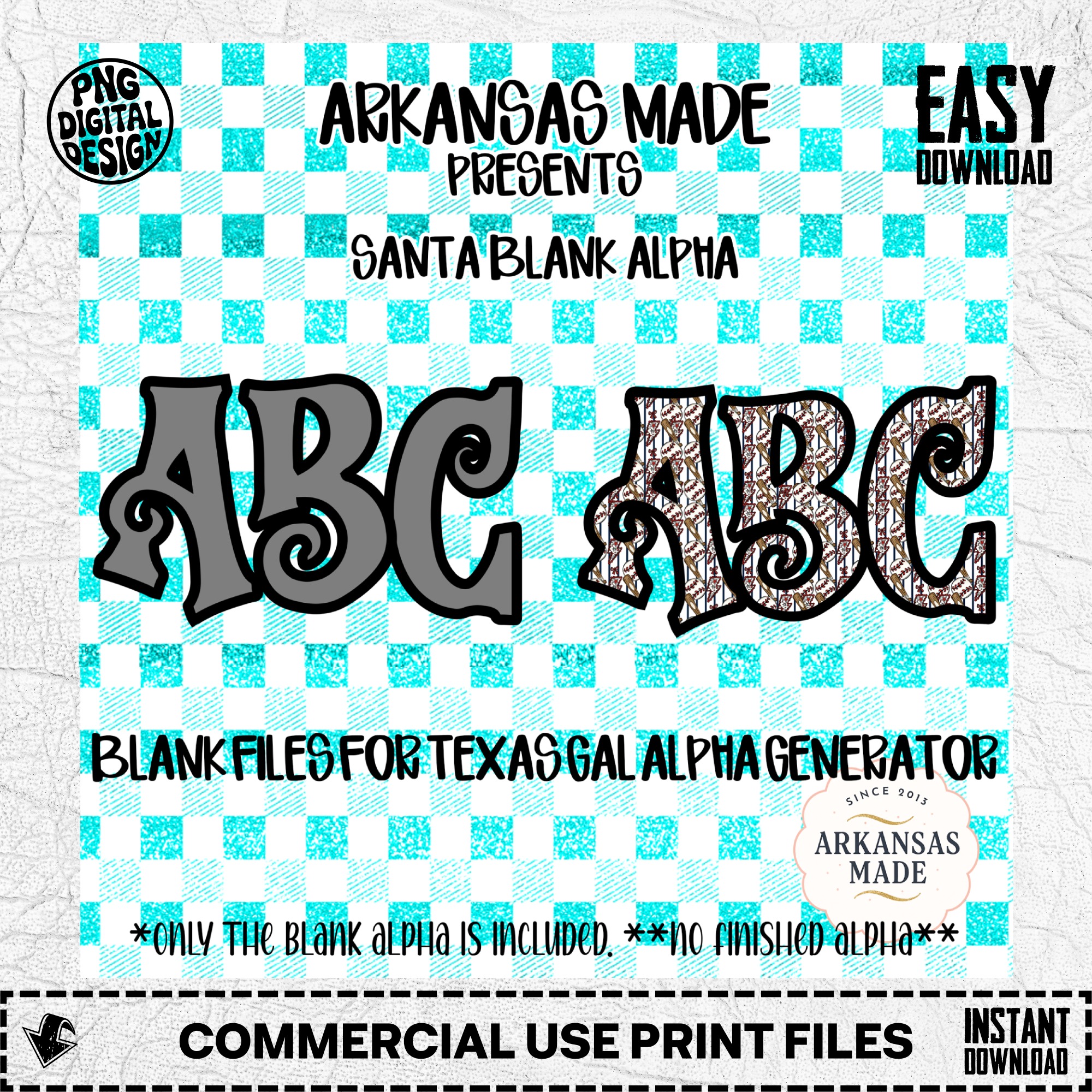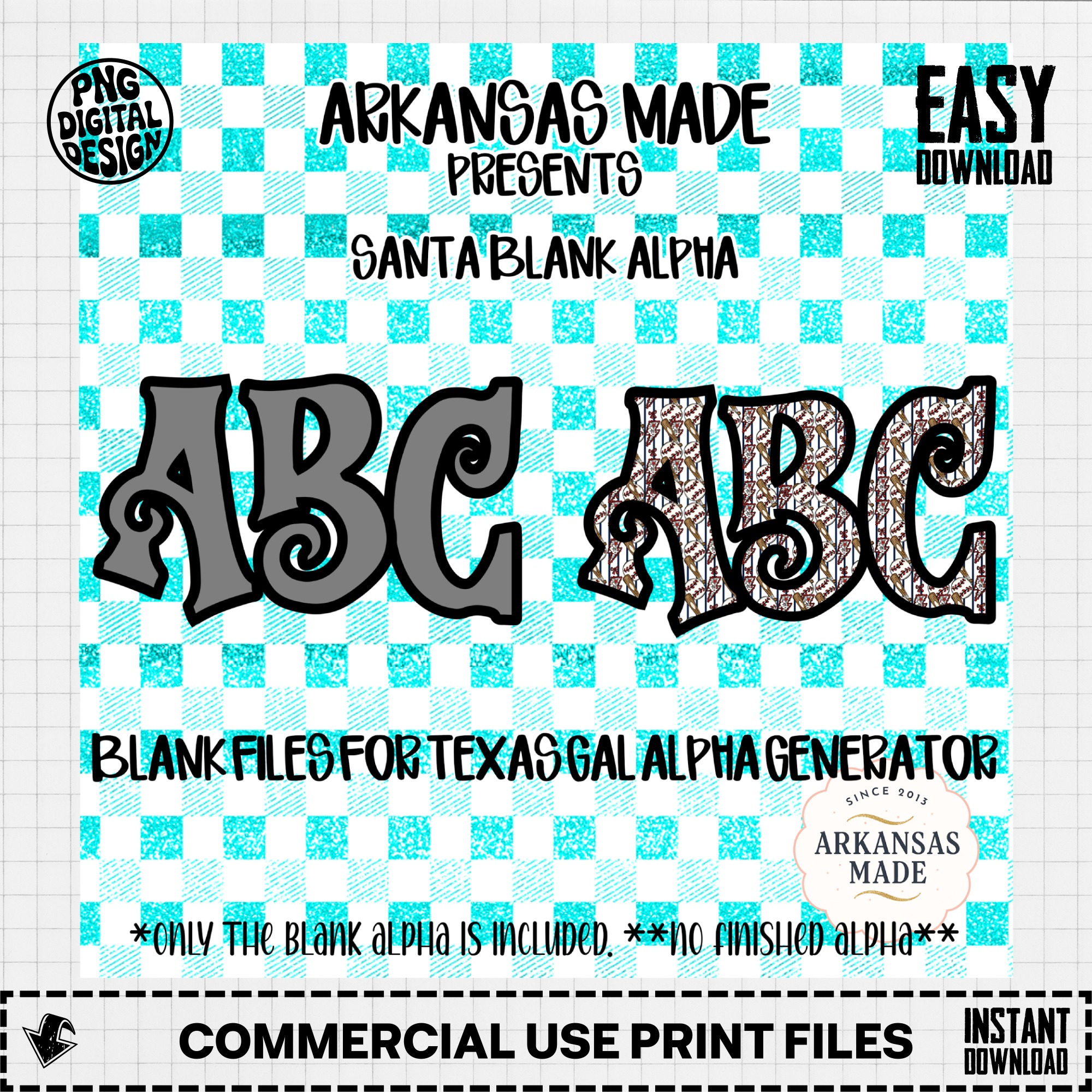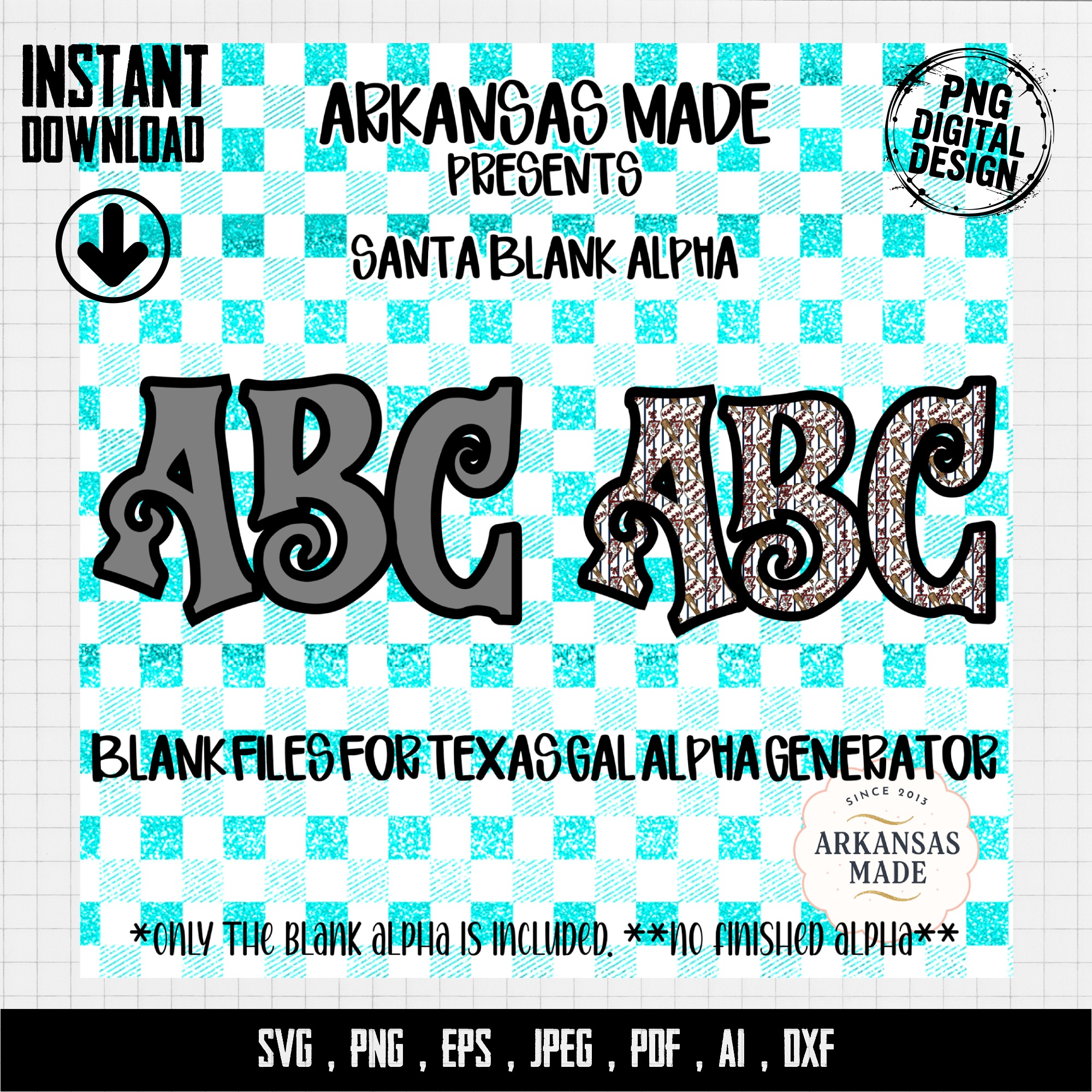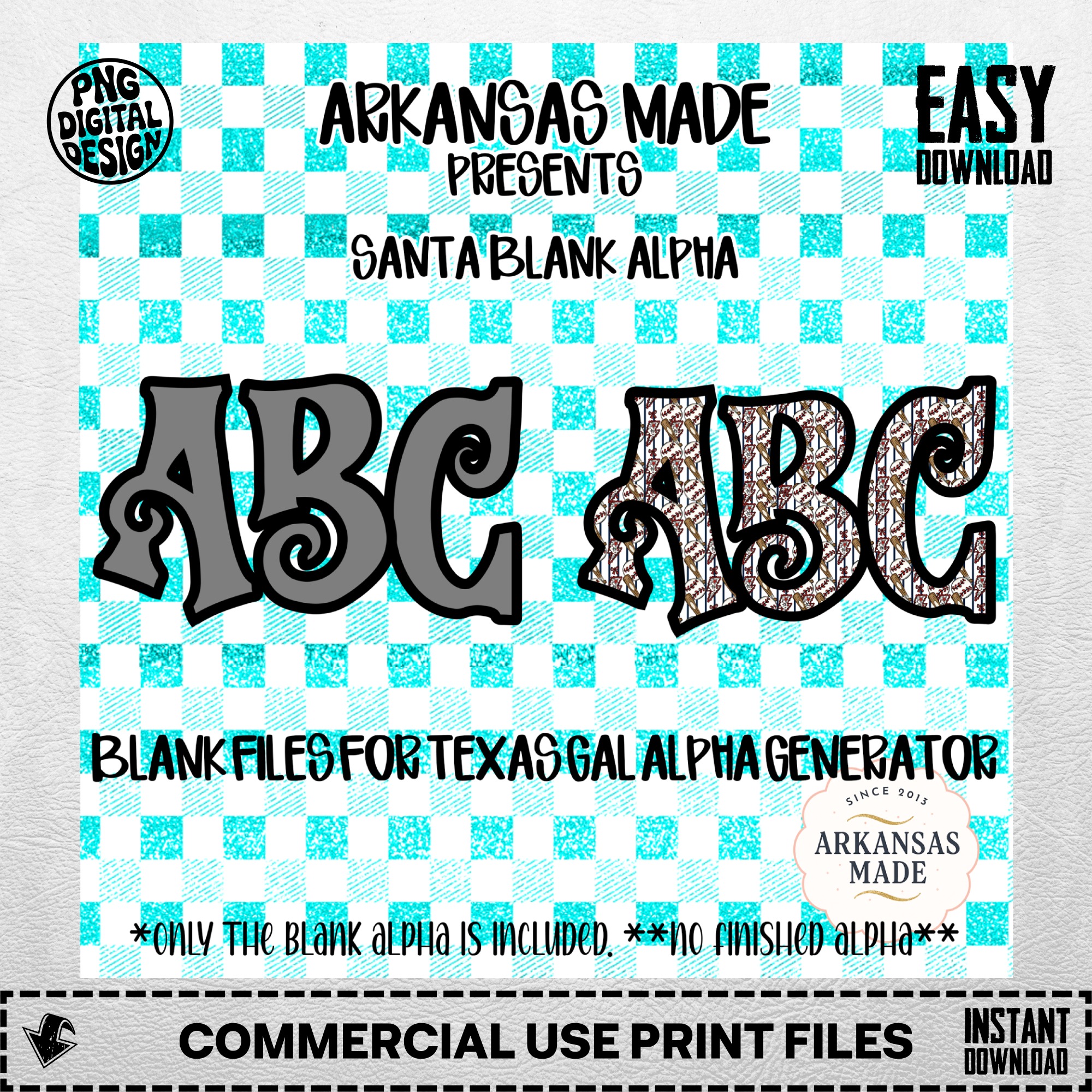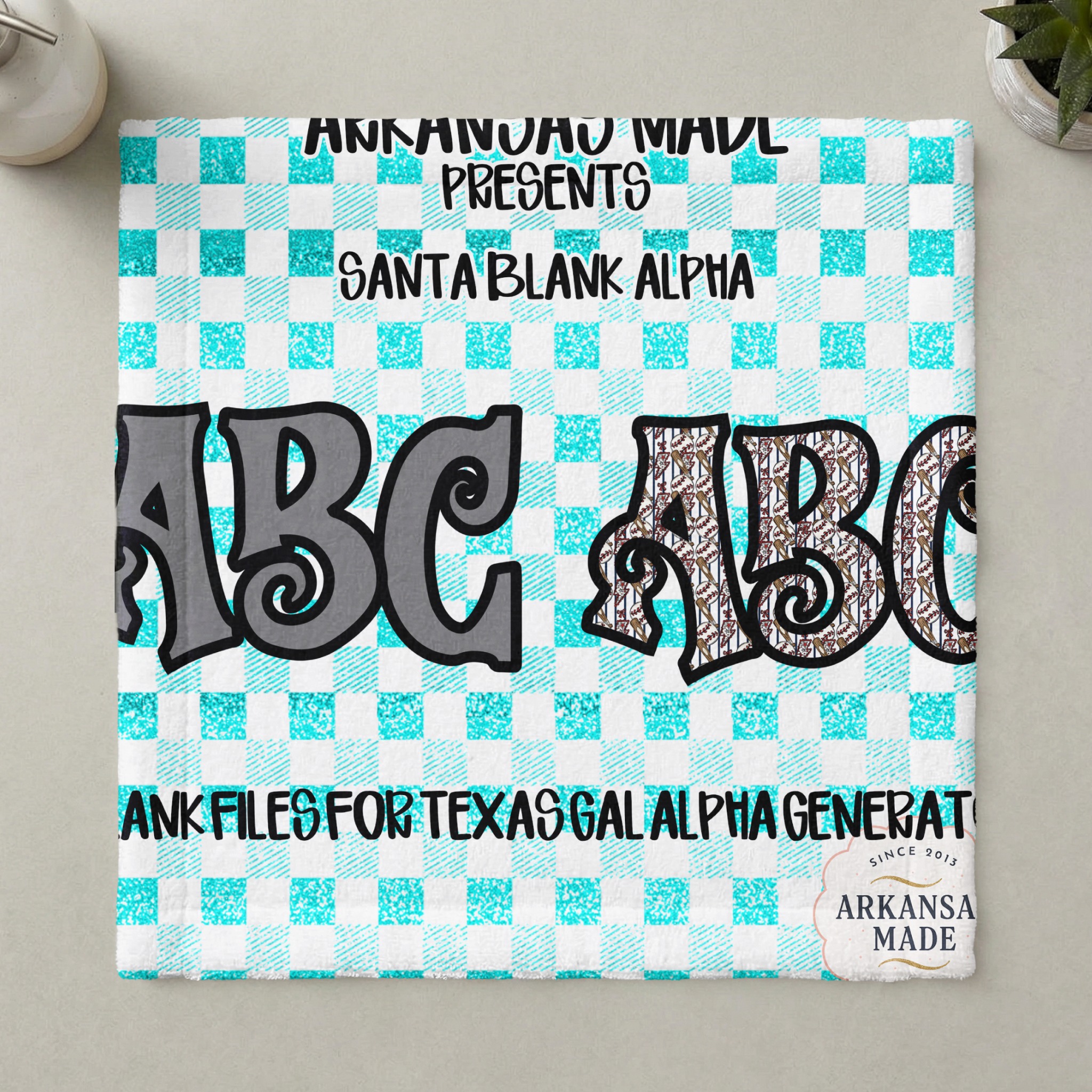
Unleash your creativity this holiday season with our exclusive Santa Blank Alpha PNG digital download. This versatile file is perfect for those looking to create personalized projects using their favorite patterns and textures. It is designed to be compatible with the Texas Gal Alpha Generator, offering seamless integration for your design needs.
This listing provides the blank alphabet files, allowing you to fill them with any design of your choice.
Includes uppercase letters, ready for your unique customization.